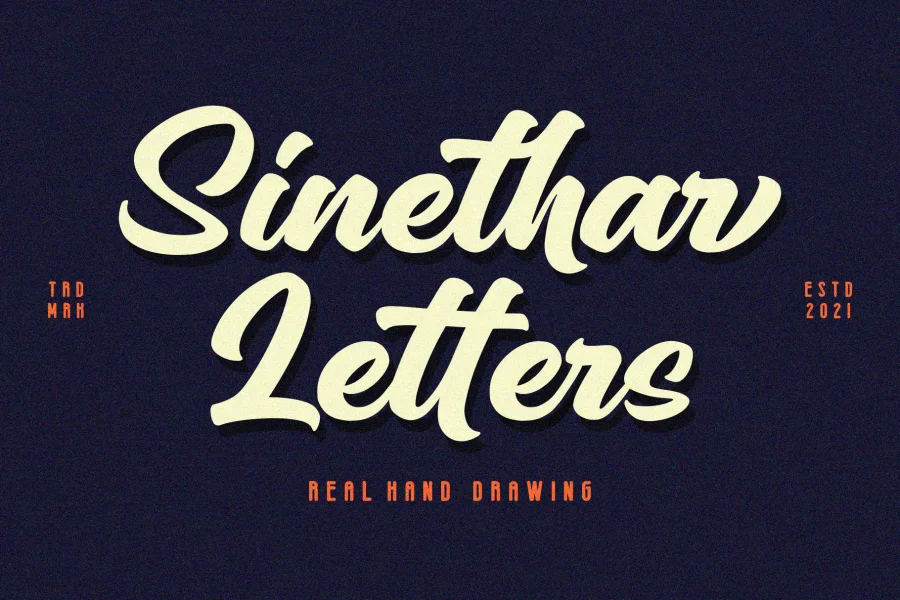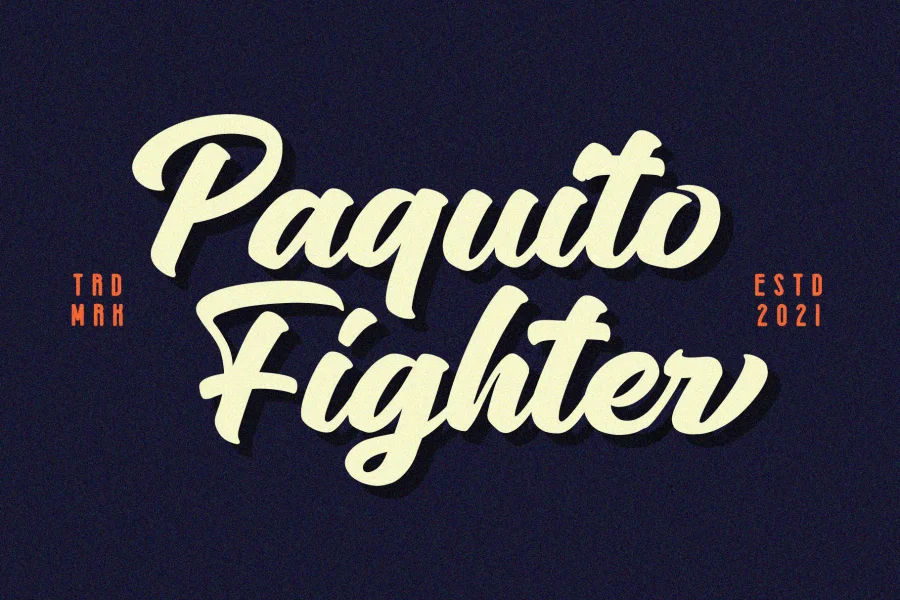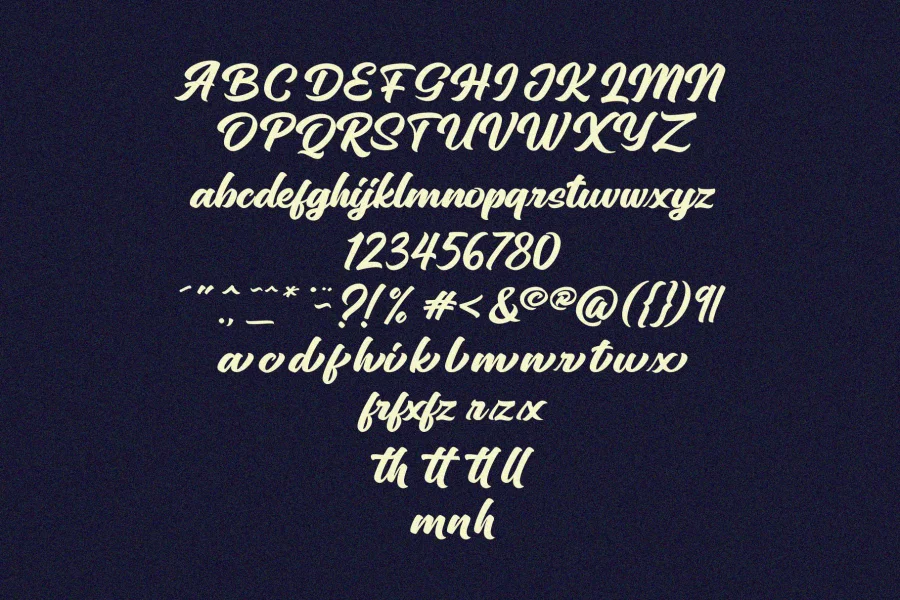
Sinethar Script Font
This font is inspired by Modern Vintage & Retro style. Sinethar Script allowing you to create hand lettering is an instant and a super handy set of bonus Swash. Ideal for logos, handwritten quotes, product packaging, header, poster, merchandise, social media & greeting cards.
Introducing Sinethar Bold Script.
Sinethar Bold Script Inspired by Modern Vintage & Retro style.
Sinethar Script allowing you to create hand lettering is an instant and a super handy set of bonus Swash. Ideal for logos, handwritten quotes, product packaging, header, poster, merchandise, social media & greeting cards.
• Uppercase & lowercase letters, numbers, punctuation
• Multilingual support
• Numerals and Punctuation